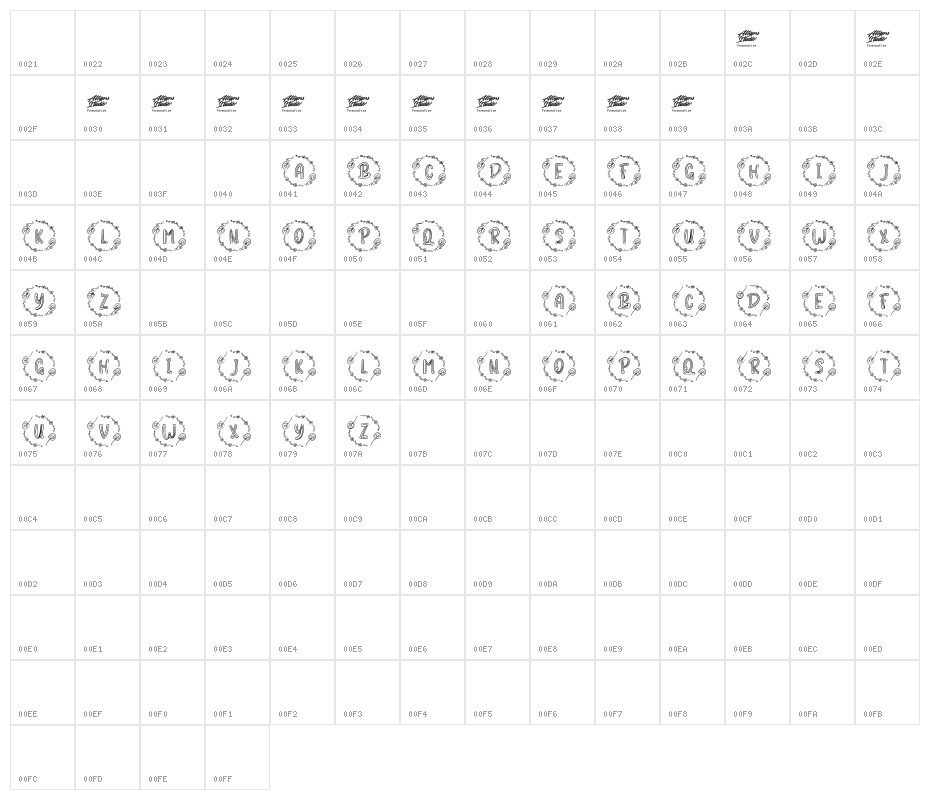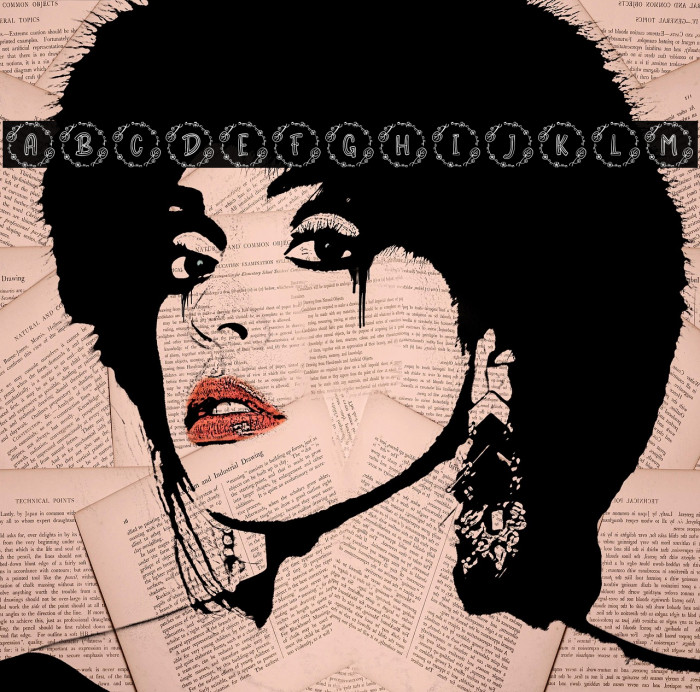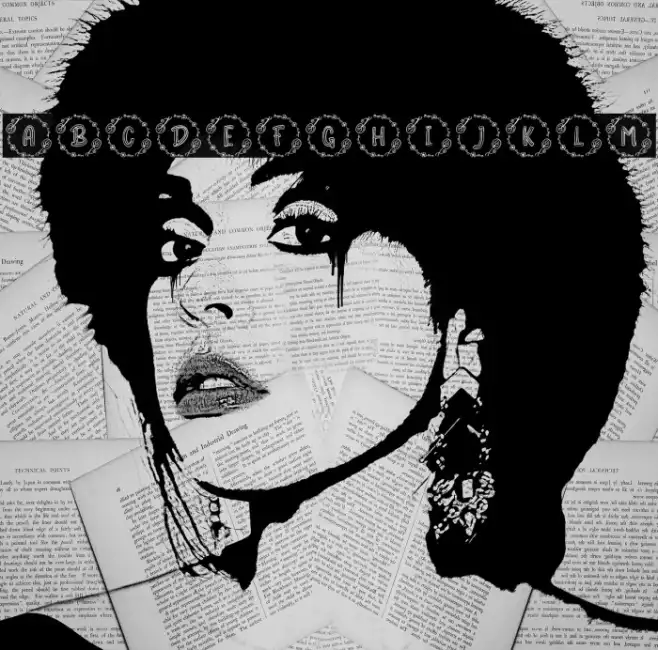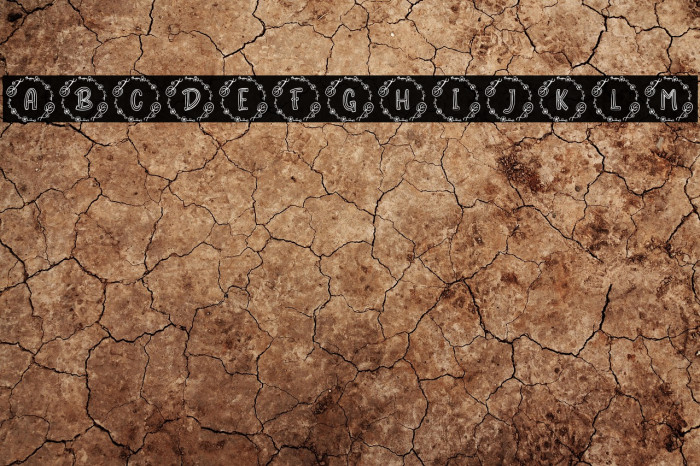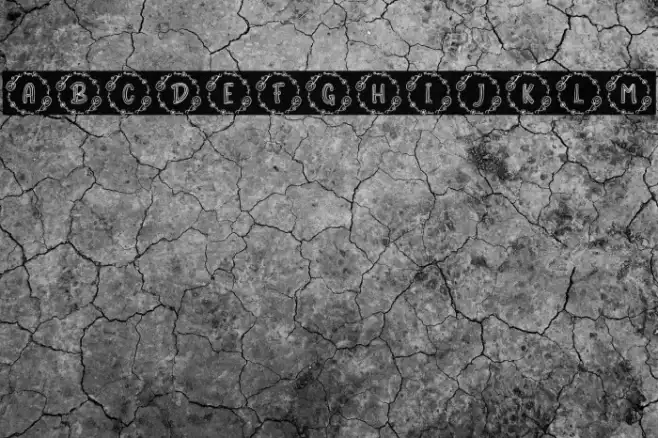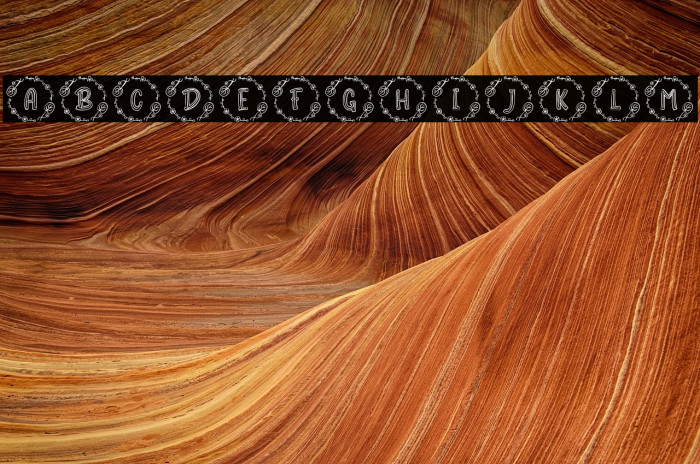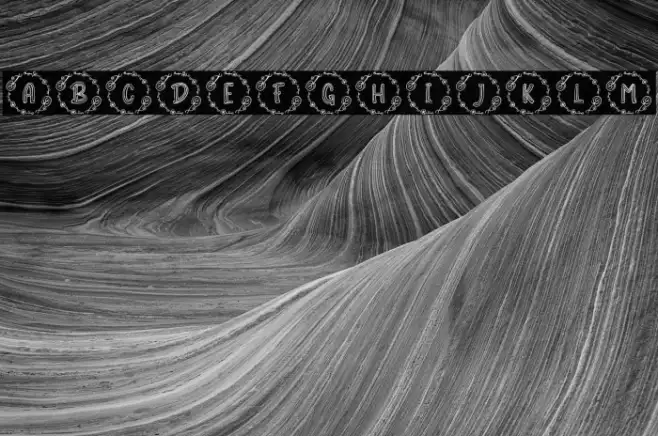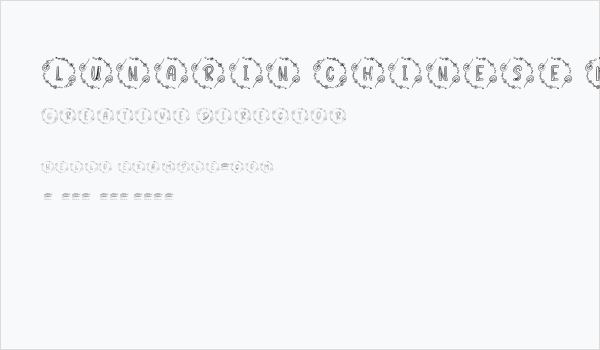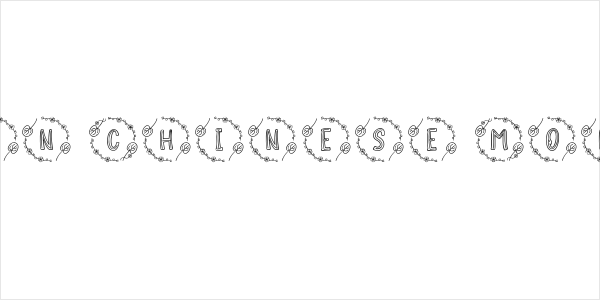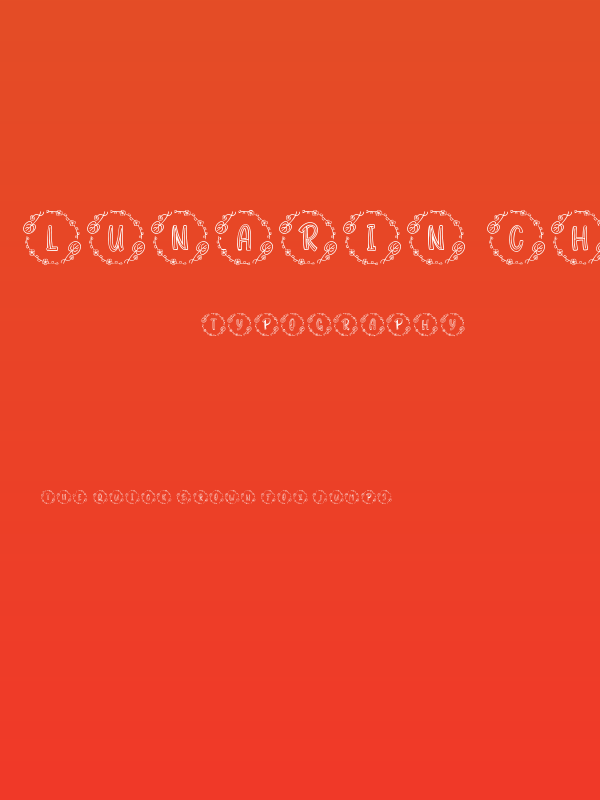
Lunarin Chinese Monogram Font
Lunarin Chinese Monogram Description
This font features a decorative style with each letter encased in a circular floral wreath, giving it an elegant and ornate appearance. The uppercase letters are bold and distinct, set against a backdrop of intricate floral designs that add a touch of sophistication and charm. The overall design is reminiscent of vintage monograms, making it ideal for projects that require a classic and refined aesthetic. The floral elements are detailed and symmetrical, enhancing the visual appeal and making each letter stand out beautifully.
| Use Case | Logos, Headlines, Decorative Monograms |
| Proposed Projects | Ideal for wedding invitations, luxury branding, personalized stationery, and decorative monograms. |